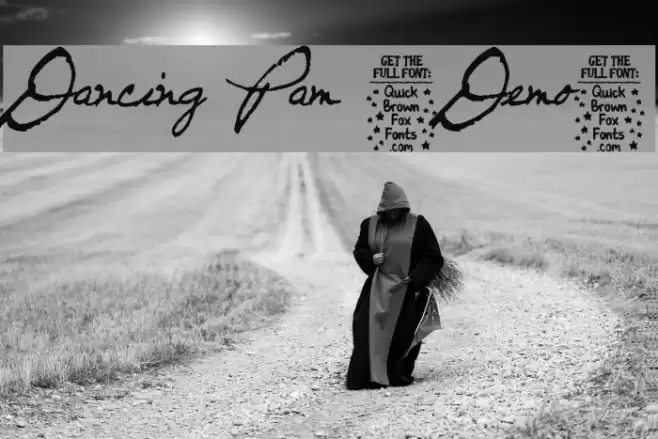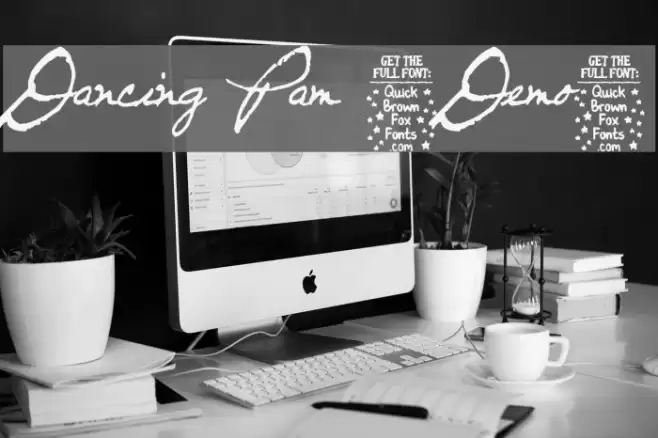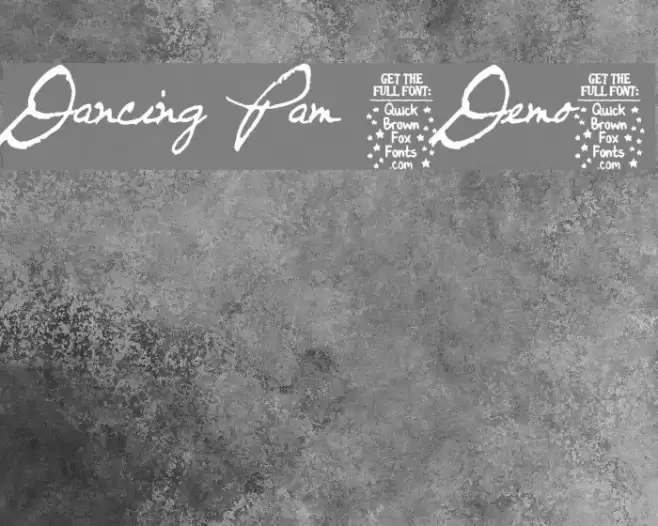
Dancing Pam [Demo] Font
Dancing Pam [Demo] Description
This font exudes a lively and dynamic character, reminiscent of a handwritten script with a playful flair. The letters are connected in a fluid manner, giving it a sense of movement and rhythm. The strokes vary in thickness, adding a touch of elegance and spontaneity. The uppercase letters are bold and expressive, while the lowercase letters maintain a consistent flow. The overall appearance is both artistic and approachable, making it suitable for creative and informal applications.
A lively, handwritten script with dynamic, fluid strokes from Handwritten fonts.
- Proposed Projects: Ideal for invitations, greeting cards, personal branding, and creative projects that require a personal touch.
- Character Spacing: Tight
- Use Case: Logos, Invitations, Greeting Cards